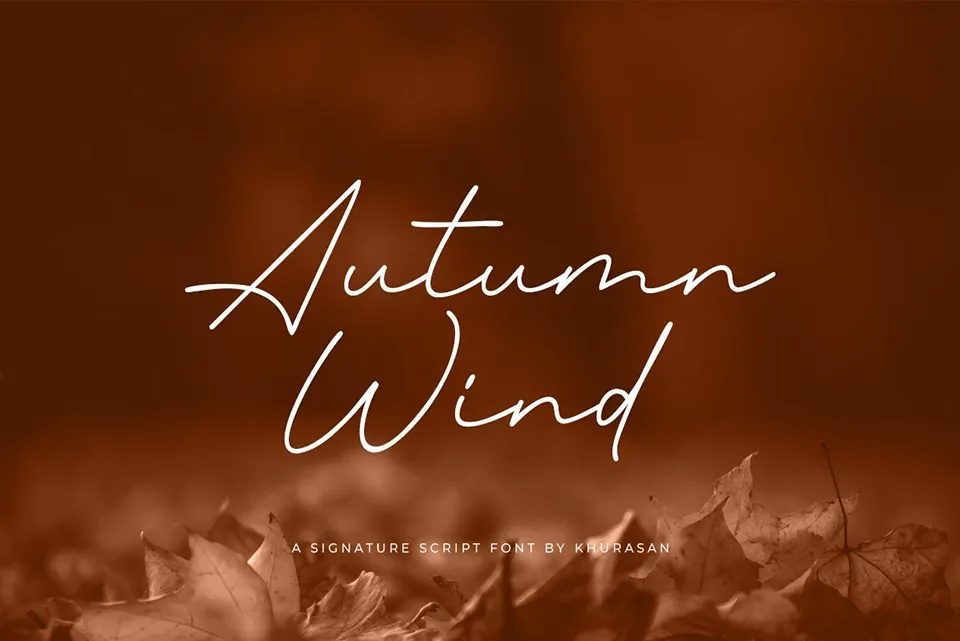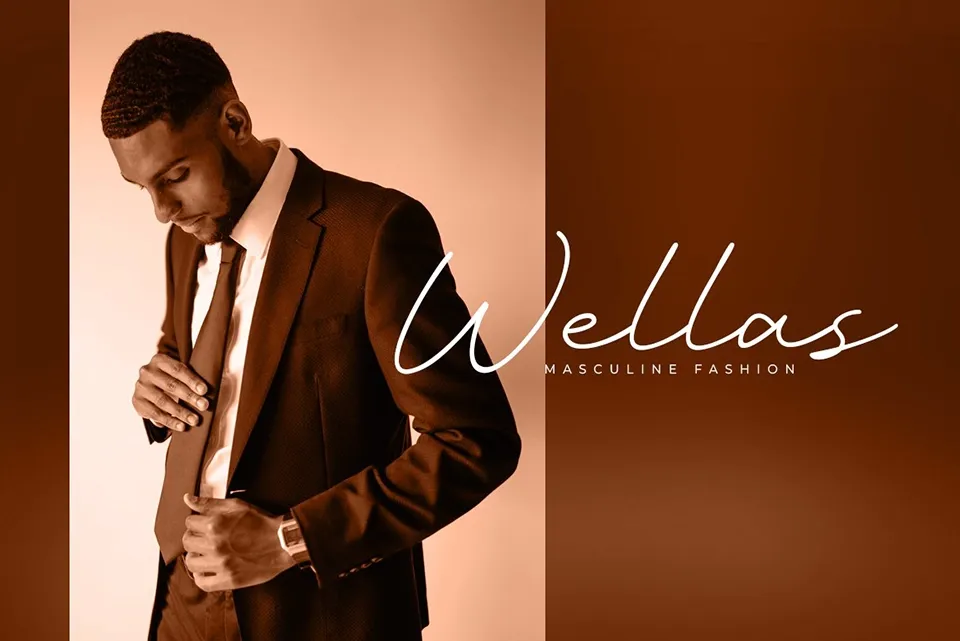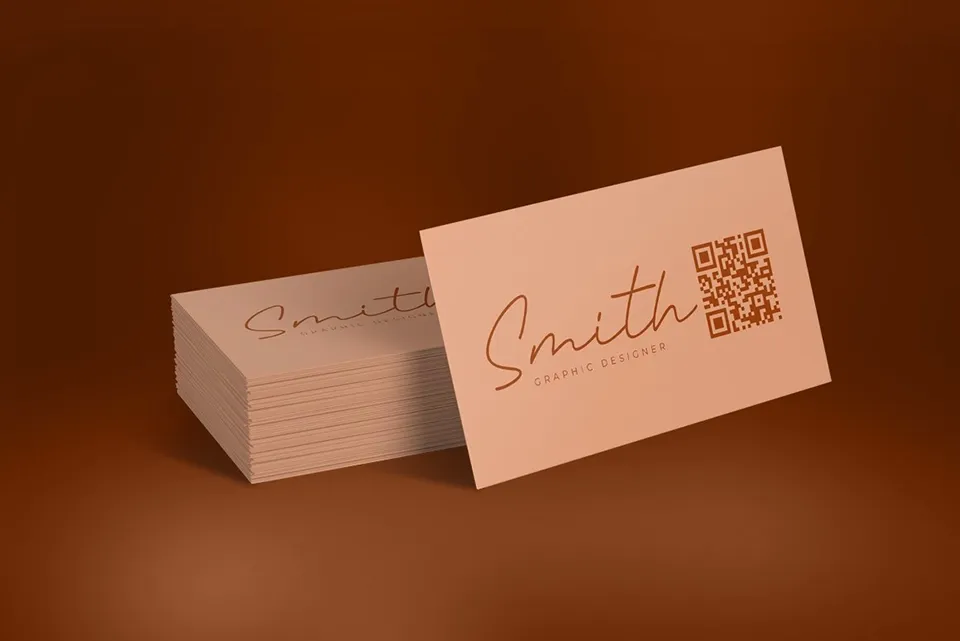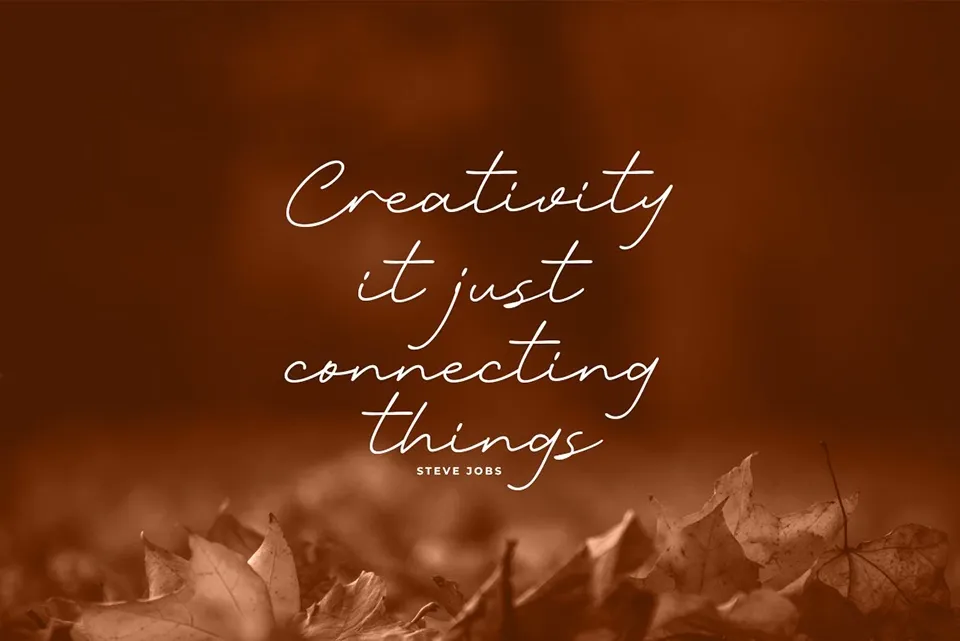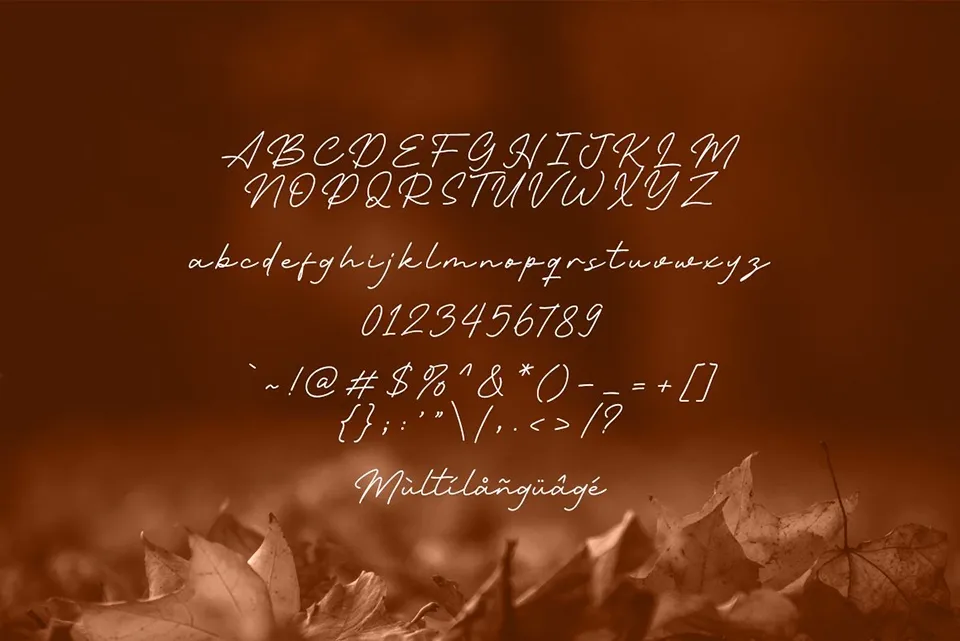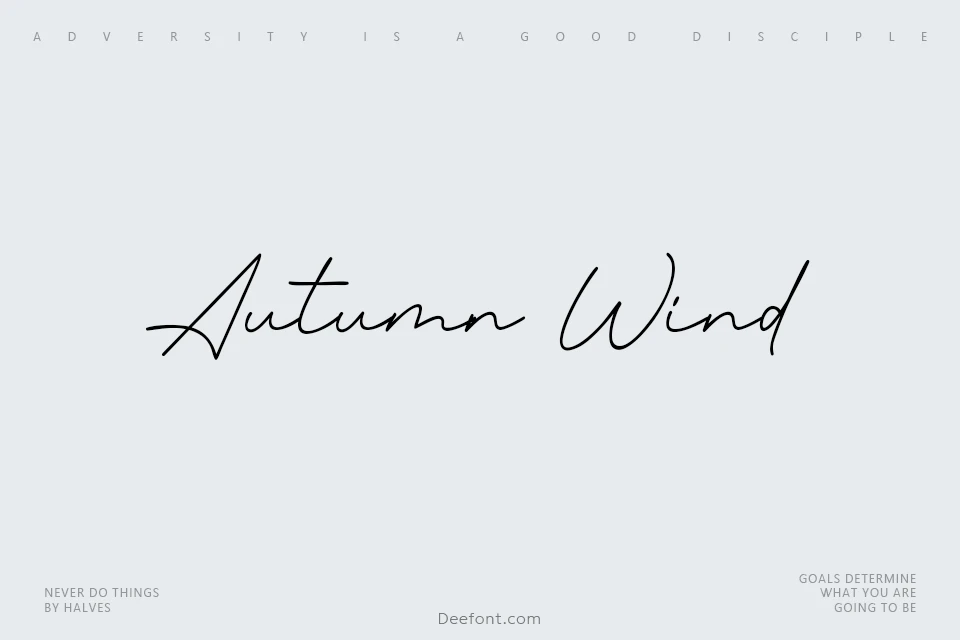
Autumn Wind Font
Autumn Wind Font is a delightful and contemporary script font created by Khurasan. This handwritten signature-style font brings a modern, elegant, and polished vibe to any project. With its smooth, flowing characters, Autumn Wind blends freshness with sophistication, making it perfect for branding, invitations, professional typography, and seasonal promotions. It offers a comprehensive set of characters, including uppercase, lowercase, numerals, and punctuation, along with multi-lingual support. Available in .ttf and .otf formats, Autumn Wind adds a unique charm and a touch of warmth to your designs.